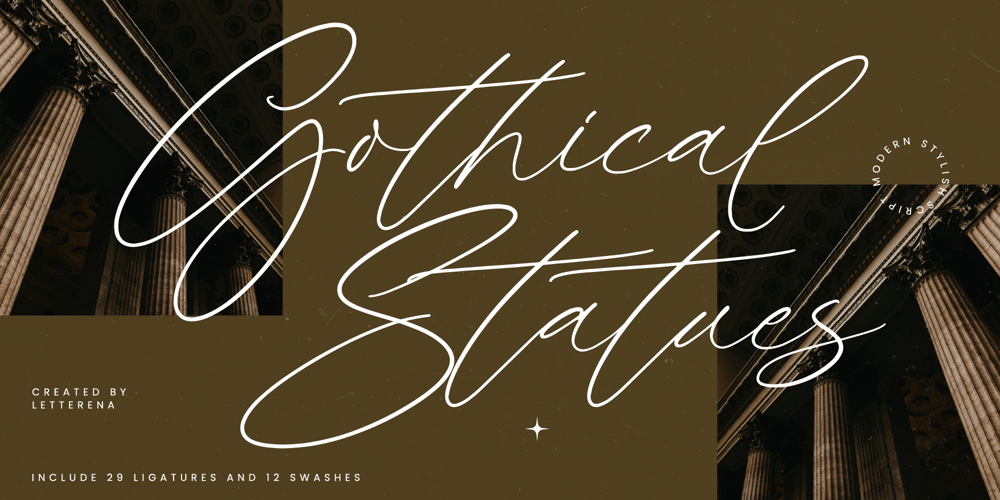
Gothical Statues Font Family was designed by Heru Utama Putra and published by Letterena Studios. Gothical Statues contains 2 styles and family package options. Gothical Statues – Modern Stylish Script , from Letterena, is a Luxury Script font, suitable for any projects such as: logos, branding projects, homeware designs, product packaging, mugs, quotes, posters, shopping bags, t-shirts, book covers, name card, invitation cards, greeting cards, label, photography, watermark, special events, and all your other luxury and beautiful projects that need a Luxury Script taste.